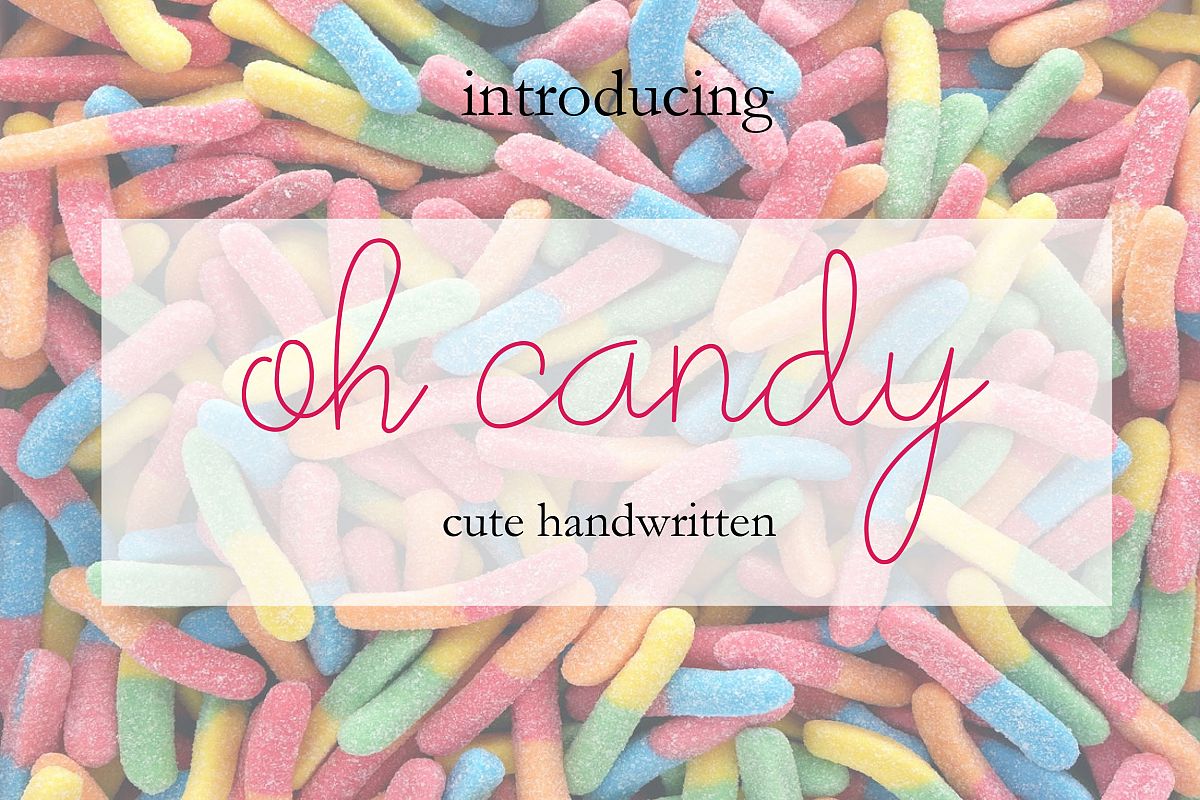
Oh Candy | Cute Handwaritten
here's come Oh Candy font.
This lovely monoline script font. It has a luxurious feel and a natural writing style.
It’s suitable for logos, watermarks on photography, signatures, quotes, album covers,header, business cards, clothing, magazines, posters and much more!